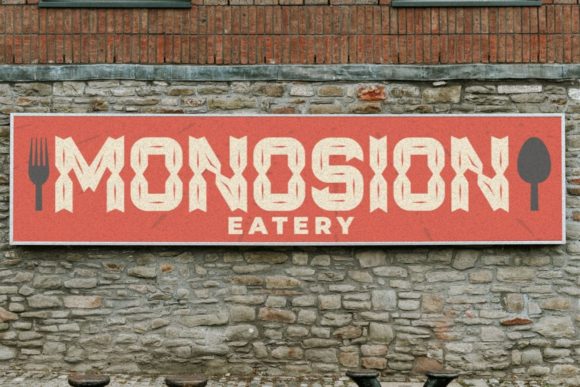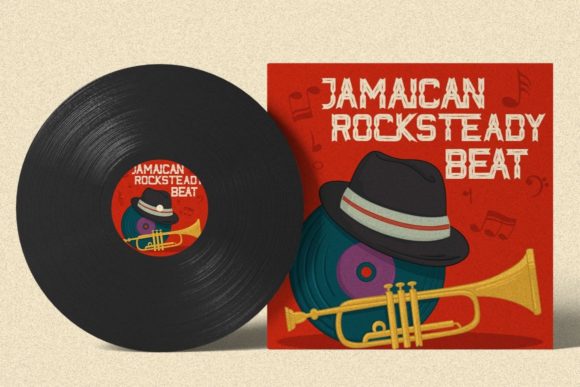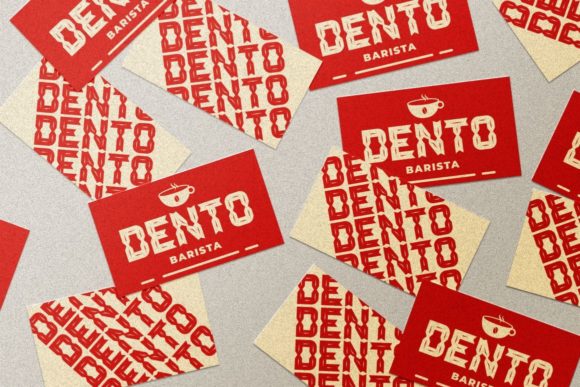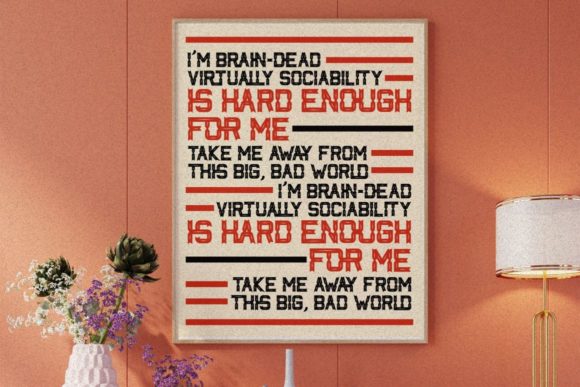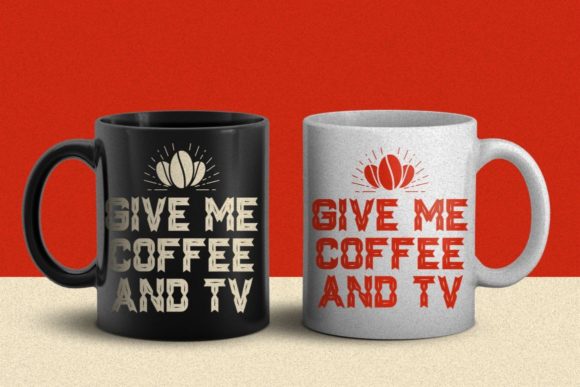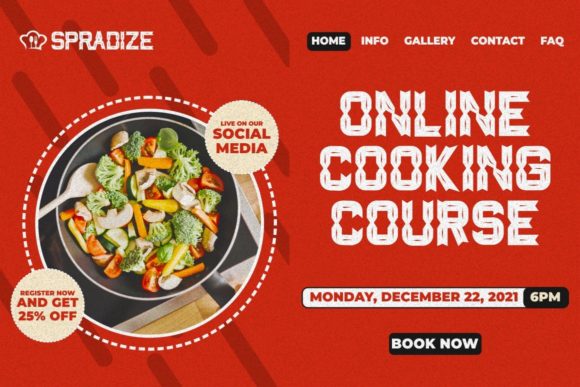
Introducing Classic Ribbon: A Timeless Display Typeface Inspired by Vintage Culture
Are you looking for a font that adds a touch of classic elegance and playfulness to your designs? Look no further than Classic Ribbon, a new display typeface that draws inspiration from music posters, carnival typography, and tattoo designs from the classic culture. This inline style font is perfect for making a statement with your headlines, logos, and branding, and is sure to capture the attention of your audience.
A Font that Embodies the Spirit of Vintage Culture
Classic Ribbon is more than just a font – it’s a design statement that evokes the nostalgia and charm of a bygone era. With its bold, curly lines and ornate details, this font is reminiscent of the vibrant music posters, colorful carnival signs, and intricate tattoo designs that have become iconic symbols of classic culture. Whether you’re designing a music promotion, film title, or gig poster, Classic Ribbon is the perfect choice to add a touch of vintage flair to your project.
One of the best things about Classic Ribbon is its versatility. This font is suitable for a wide range of design projects, including:
- Logos and branding: Create a lasting impression with a custom logo that showcases your brand’s personality and style.
- Wedding invitations: Add a touch of elegance and sophistication to your wedding stationery with Classic Ribbon.
- Landing pages: Make a bold statement with your website’s headline and capture the attention of your visitors.
- Apparel: Design eye-catching t-shirts, hoodies, and other apparel that showcases your creativity and style.
- Posters and flyers: Create stunning posters and flyers that grab attention and communicate your message effectively.
- Greeting cards and invitation cards: Add a personal touch to your cards and invitations with Classic Ribbon’s playful and elegant design.
- Social media: Stand out on social media with custom graphics and typography that showcase your brand’s personality.
- Crafting and quotes: Use Classic Ribbon to add a decorative touch to your crafting projects and quotes.
Why Choose Classic Ribbon?
So why choose Classic Ribbon over other fonts? Here are just a few reasons:
- Unique and distinctive design that adds a touch of classic elegance and playfulness to your designs.
- Versatile and suitable for a wide range of design projects.
- Perfect for designers and crafters who want to add a personal touch to their projects.
Classic Ribbon is a timeless display typeface that is sure to capture the attention of your audience and add a touch of classic elegance and playfulness to your designs. With its bold, curly lines and ornate details, this font is perfect for making a statement with your headlines, logos, and branding. Whether you’re a designer or crafter, Classic Ribbon is a must-have font that will take your projects to the next level.